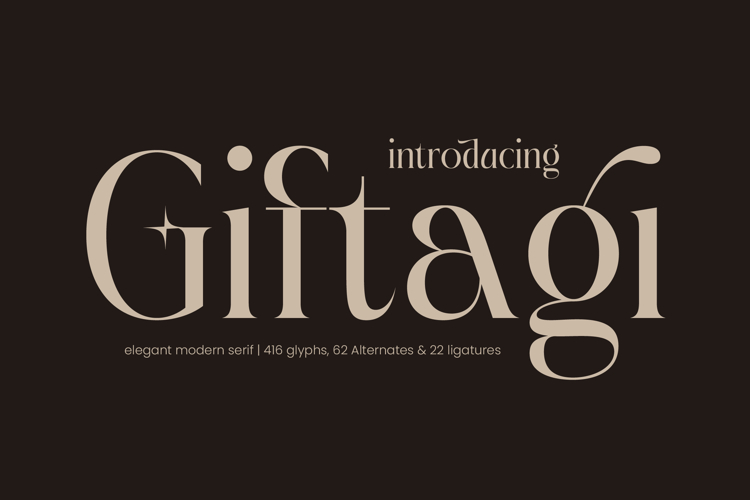
Giftagi - Elegant Modern Serif Font
Elevate your designs with unparalleled grace. Introducing Giftagi - Elegant Modern Serif Font, a typeface meticulously crafted to embody sophistication and contemporary luxury. Its high-contrast strokes and delicate serifs create a visually stunning presence, making it the perfect choice for projects demanding both classic charm and modern flair. This font exudes an inherent elegance that immediately captures attention and conveys a sense of refined aesthetic.
Unleash a world of creative possibilities with Giftagi - Elegant Modern Serif Font. Boasting 416 glyphs, 62 alternates, and 22 ligatures, this font offers an extraordinary range of customization options. These rich typographic features empower designers to craft truly unique and expressive visual narratives, ensuring your brand message is delivered with distinctive personality and unmatched artistry. It’s a tool for crafting genuinely bespoke designs.
Perfectly suited for premium aesthetics, Giftagi - Elegant Modern Serif Font is ideal for luxury branding, high-end packaging, editorial layouts, fashion publications, and exclusive event invitations. Its exquisite design ensures your project stands out with a look of timeless prestige. With its extensive multilingual support, Giftagi - Elegant Modern Serif Font adapts seamlessly across global markets, making it incredibly versatile for international projects.